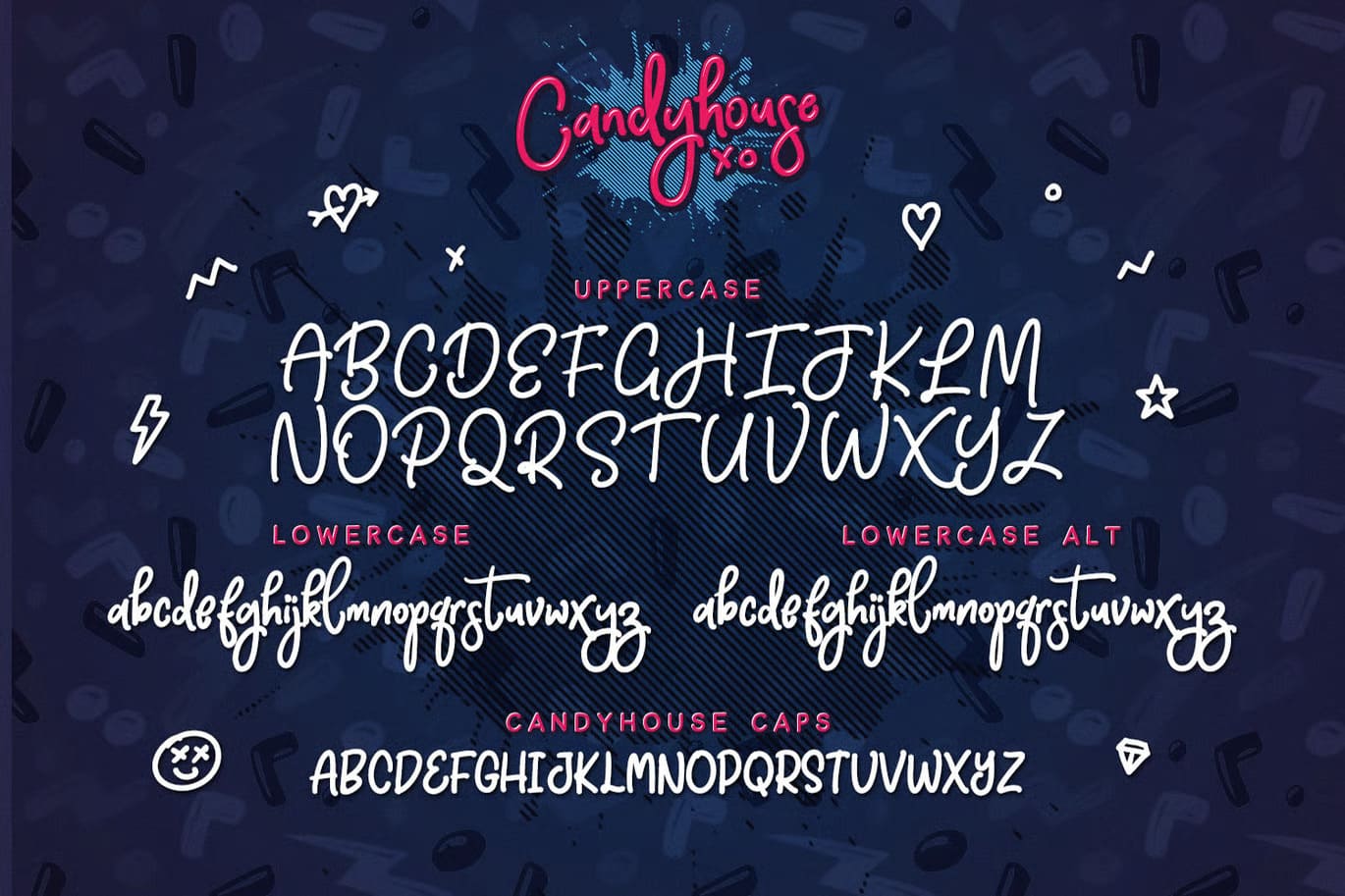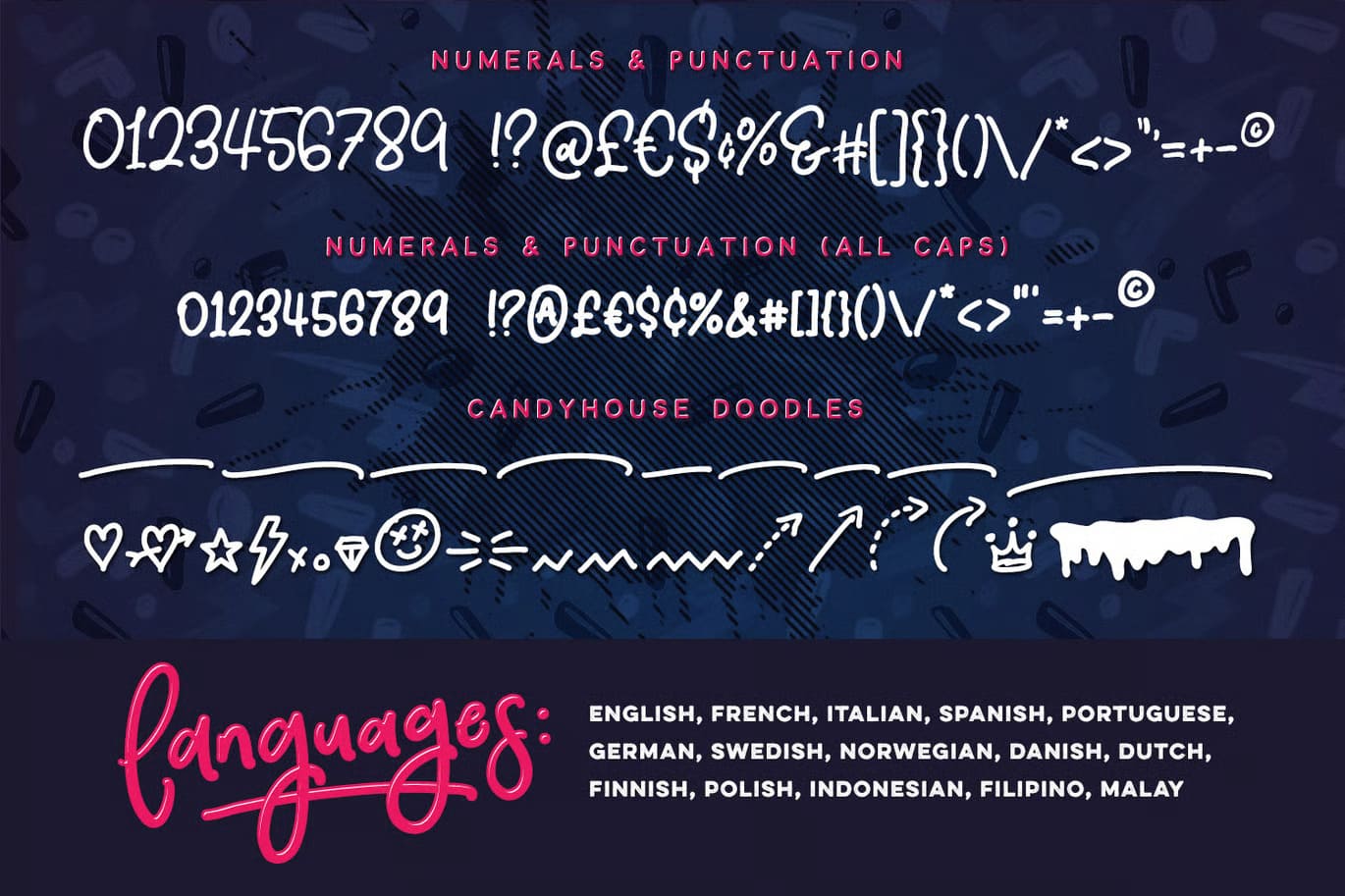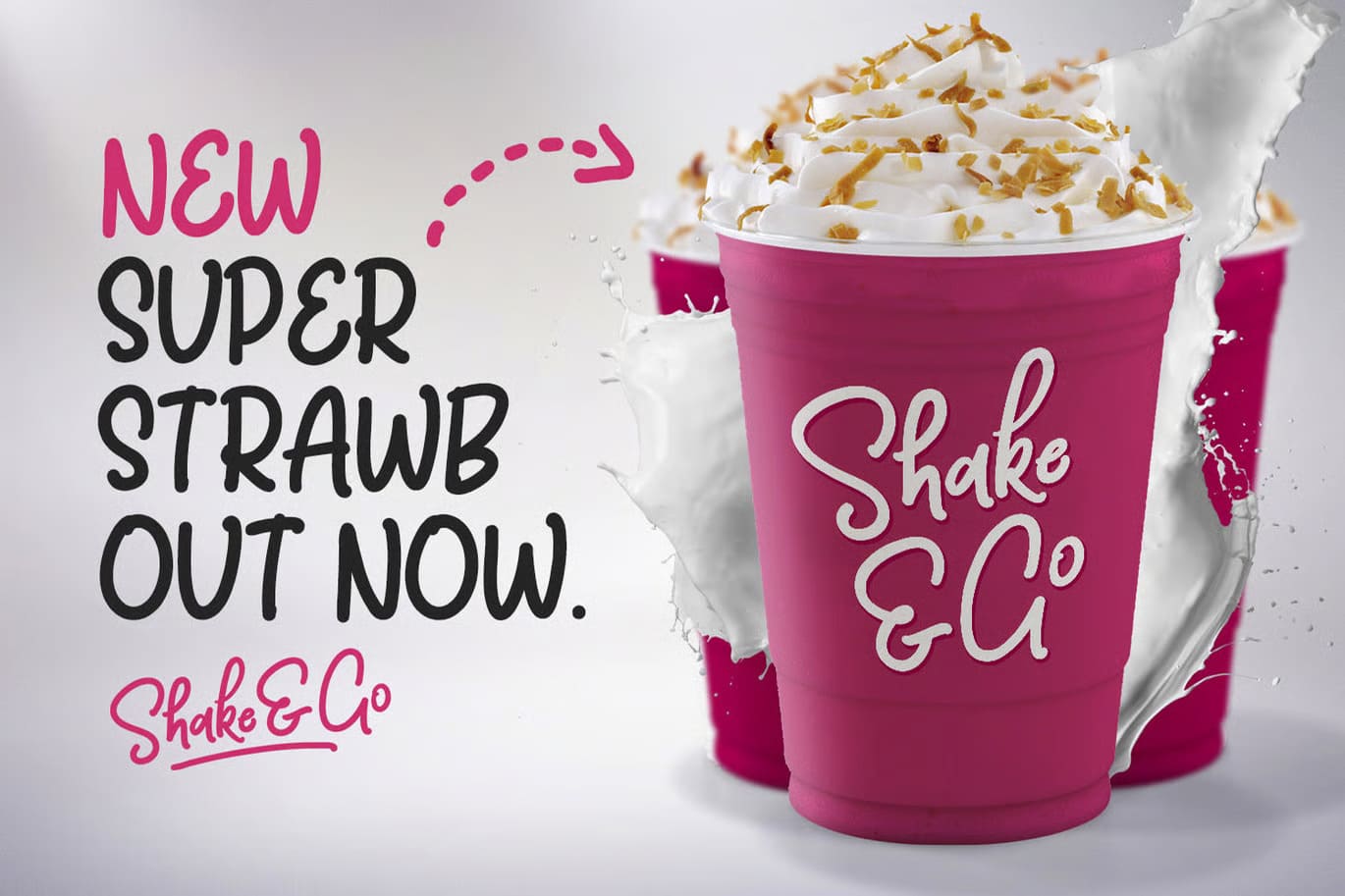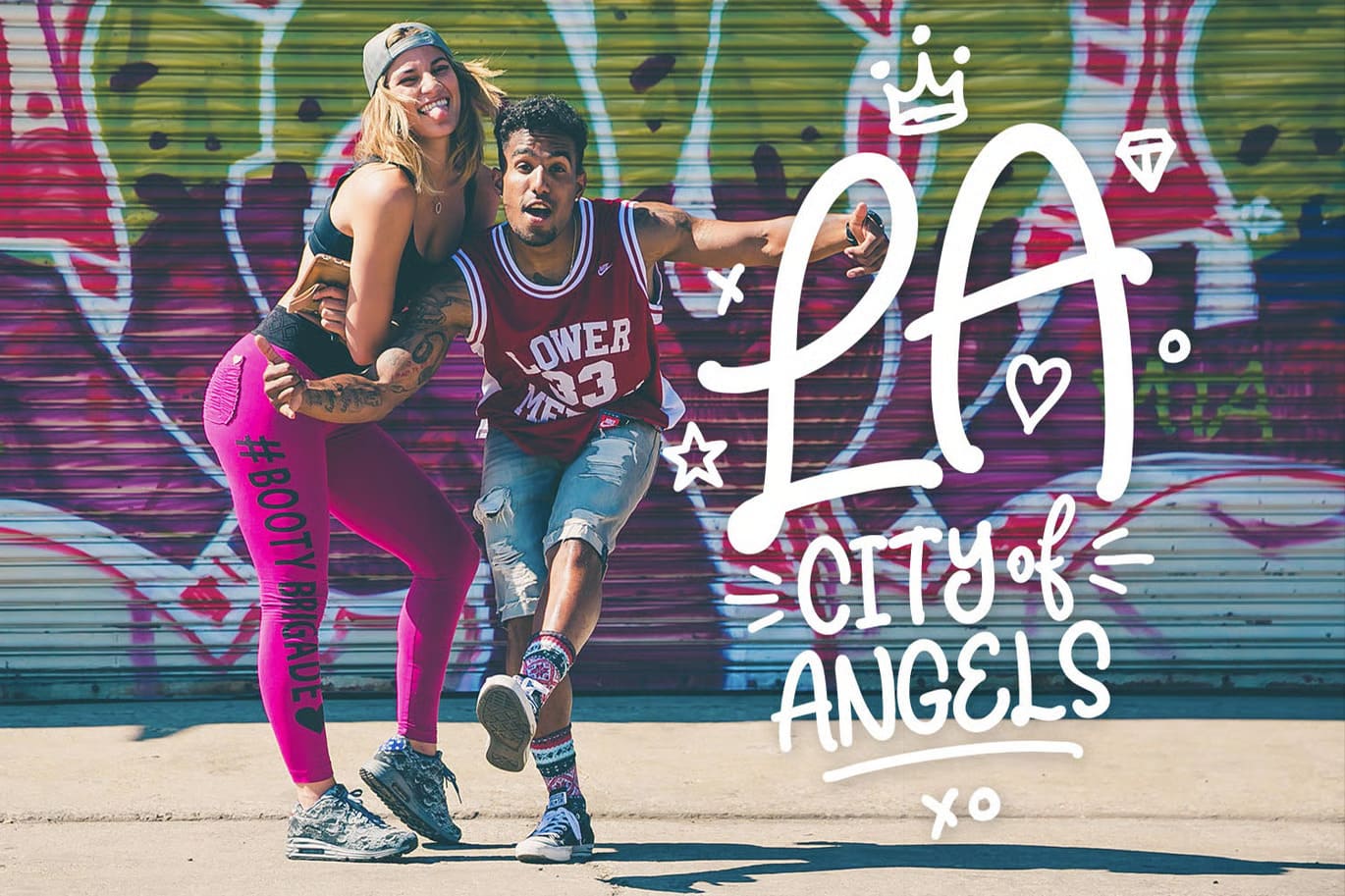
Candyhouse Free Font – Playful Handwritten Style
Candyhouse is a hand-drawn font set with a bold and playful style. It has a soft, rounded look that gives designs a fun and lively feel, making it a good choice when you want something more eye-catching.
It comes with extra options that let you build different text styles easily. You can switch between alternate letters, combine fonts, and add small details to create more flexible layouts.
Along with the main script font, you also get an alternate version, an all-caps style, and a set of hand-drawn doodles like swashes and arrows. These help you avoid repeating the same look and give your designs more variety.
Included Fonts
- Candyhouse script with uppercase, lowercase, numbers and punctuation
- Alternate lowercase version for different styles
- All caps font with numbers and punctuation
- Doodle font with 30 hand-drawn elements
Features
- Hand-drawn script style
- Alternate characters
- All caps version
- 30 extra doodles and swashes
- Numbers and punctuation
- Multilingual support
Supports multiple languages including English, French, Italian, Spanish, Portuguese, German, Swedish, Norwegian, Danish, Dutch, Finnish, Polish, Indonesian, Filipino and Malay.